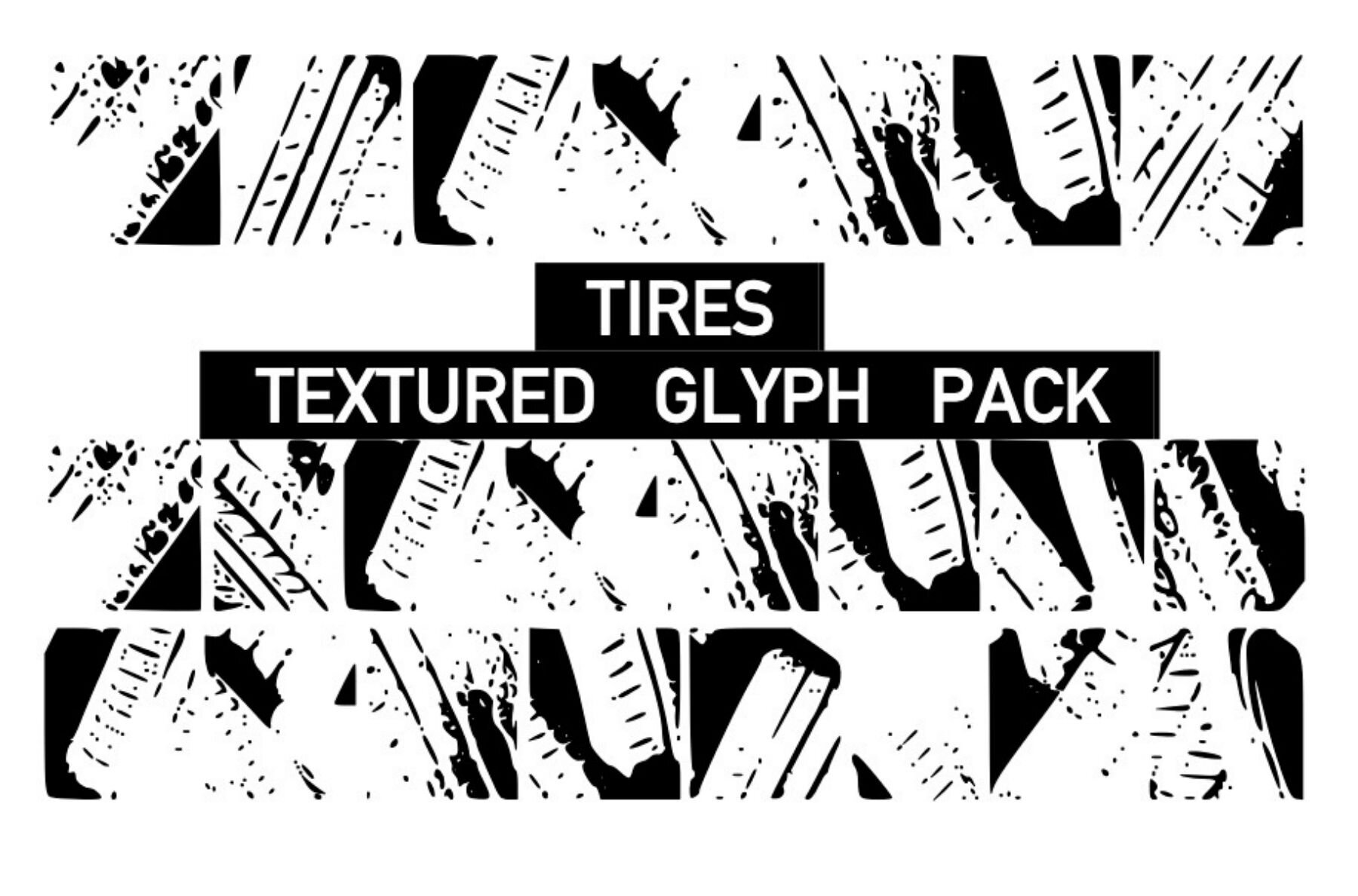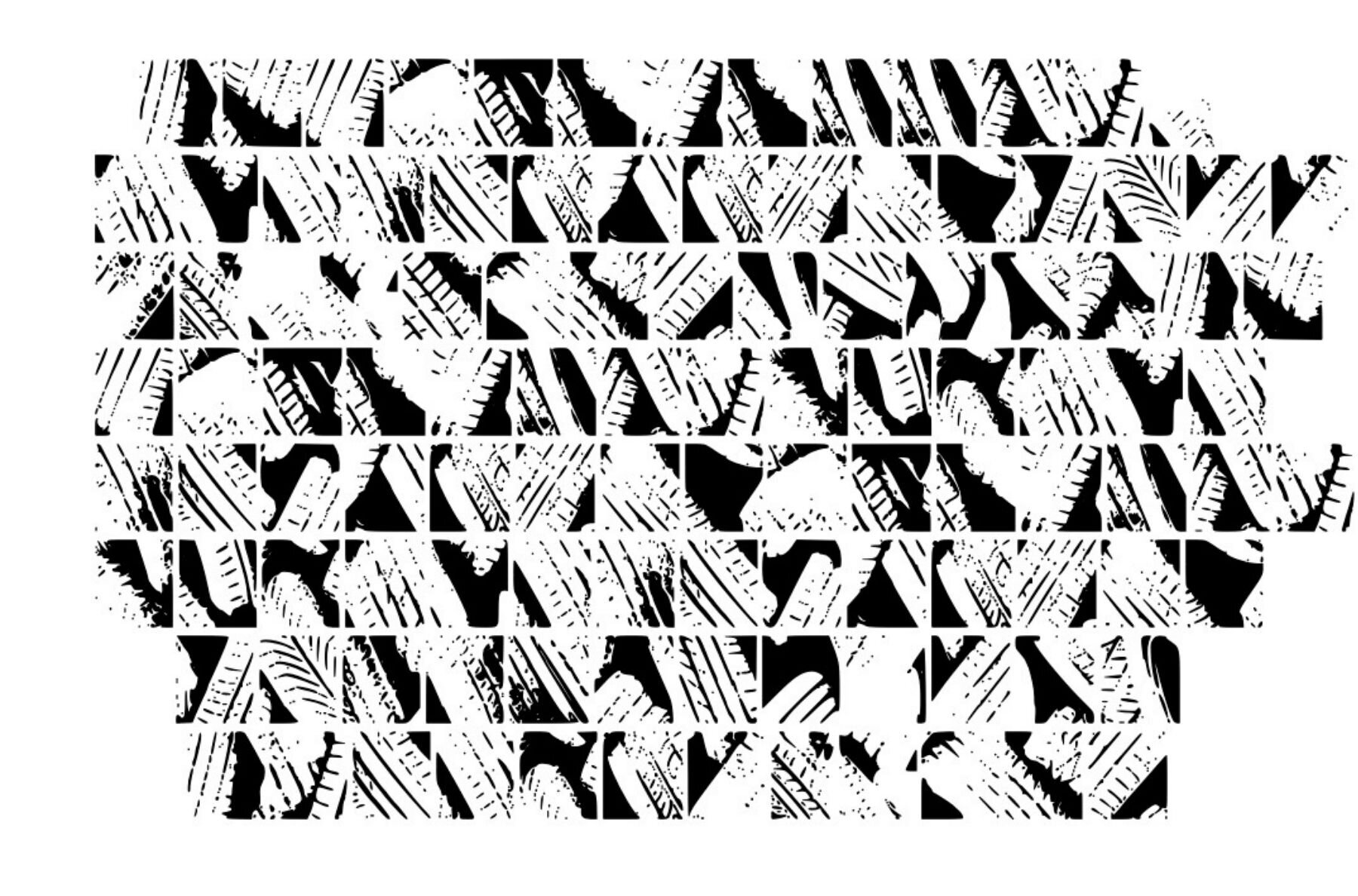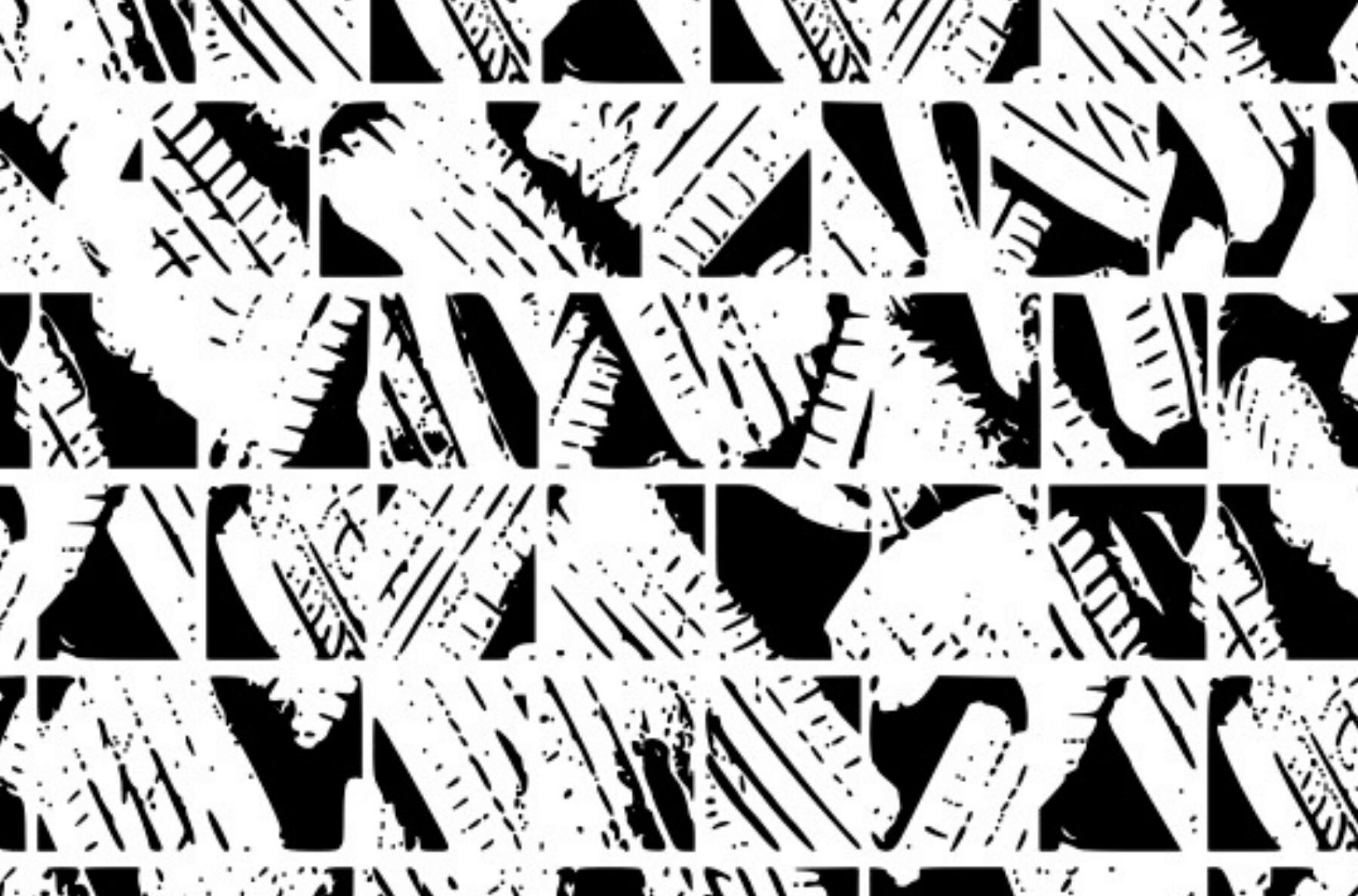
Texture Tires Font
Texture Tires Regular
Discover the dynamic Texture Tires by Graphics Bam, a versatile collection of tire-print textures that will revolutionize your design projects. This extensive glyph pack offers a robust selection of tire-based textures, perfect for adding depth and interest to any creative venture. Unleash your creativity with this indispensable texture pack, enhancing your designs with distinctive tire patterns. Ideal for graphic designers and crafters alike, Texture Tires is a must-have addition to your design toolkit.Texture Tires Glyph Pack